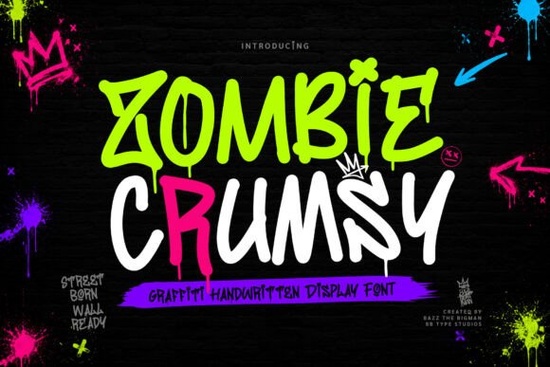
If you're looking for a bold, expressive font that brings raw energy to your designs, Zombie Crumsy Font is a standout choice. It’s perfect for anyone working on streetwear branding, music posters, skateboard graphics, or social media content with an urban edge. With its hand-drawn feel and gritty texture, this font captures the spirit of graffiti culture and punk aesthetics without trying too hard.
What makes Zombie Crumsy Font stand out?
Unlike clean, polished typefaces, Zombie Crumsy embraces imperfection think uneven brush strokes, smudged edges, and dynamic letterforms that look like they were sprayed on a concrete wall. This isn’t just a font; it’s a vibe. The two available styles Regular and Drip give you flexibility depending on how intense you want your message to be. The Drip version adds extra flair with dripping effects, ideal for album covers or festival flyers where drama matters.
It’s especially effective when you want to convey authenticity. Whether you’re designing t-shirts for a local skate crew, creating stickers for a DIY zine, or making YouTube thumbnails that grab attention, Zombie Crumsy adds character that feels real, not manufactured.
Where can you use Zombie Crumsy Font?
This font works best in display contexts where impact matters. Try it for:
- Streetwear brand logos – Add instant edge to hoodies, tees, and tote bags.
- Musical projects – Perfect for indie band posters, vinyl labels, or concert flyers.
- Social media graphics – Stand out in feeds with bold, eye-catching captions.
- Skateboard deck designs – Match the rebellious spirit of the sport.
- Print-on-demand products – Great for custom mugs, stickers, and art prints.
How does it compare to other fonts in its style?
If you like bold, edgy typefaces but want something with more personality than a standard stencil font, Zombie Crumsy fits right in. It shares some DNA with fonts like Skyline Font, which also leans into urban vibes, but Zombie Crumsy feels more spontaneous and less structured. Compared to Bold Super Font, it has a more organic, handcrafted look rather than a mechanical precision.
For those who enjoy playful textures, Playful Slab Font offers a similar rough-around-the-edges charm but with a more geometric base. If you're drawn to vintage American street signs and retro signage, American Vibe Font might be a close cousin but again, Zombie Crumsy leans harder into the underground, DIY aesthetic.
And if you love tropical or fun-inspired designs, Harvest Mango Font brings a different kind of energy altogether. But for raw, unfiltered street credibility? Zombie Crumsy delivers exactly what you’d expect from a graffiti-influenced typeface.
Why designers are choosing this font
One reason many creators turn to Zombie Crumsy is its versatility within a niche. It doesn’t scream “look at me” in a cliché way it commands attention through authenticity. The irregularities aren’t flaws; they’re features that tell a story. That’s why it’s often used in limited-edition drops, independent artist merch, and community-driven creative projects.
It also pairs well with minimal backgrounds. When used against plain black, white, or dark gray, the font really pops. Just avoid using it in long blocks of text this is a display font, meant for headlines and short phrases.
Start small. Use Zombie Crumsy for a single poster, a sticker mockup, or a social media post. See how it changes the mood of your design. Once you’ve tested it, you’ll likely find yourself reaching for it again and again especially when you want to keep things real, raw, and full of attitude.